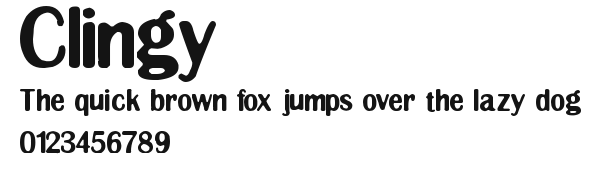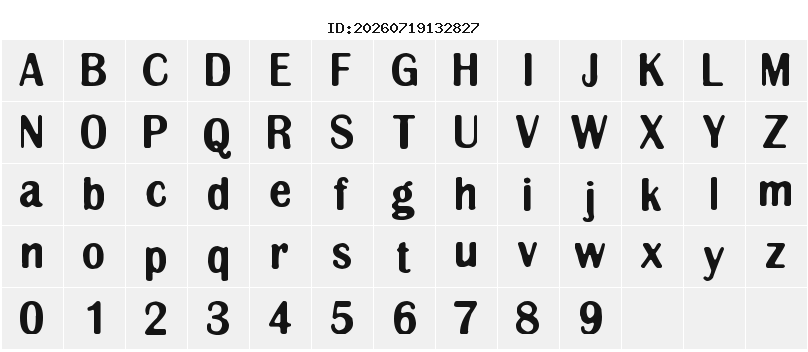
• Font Name: Clingy
Clingy.ttf is a modern, elegant sans-serif font designed for ultimate readability and visual harmony. Perfect for branding, headlines, web design, and print materials.